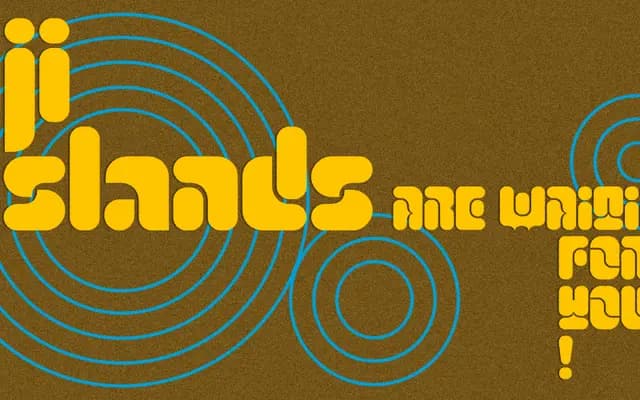
Reptil
Reptil specimen from The Designers Foundry
A contemporary revival of Bob Newman's 1971 Letraset typeface Turtle, rebuilt on circular geometry by Raphaël de la Morinerie and Ethan Nakache.
Designed by Raphaël de la Morinerie and Ethan Nakache, Reptil takes the circular structure of the long-forgotten Letraset Turtle and reworks it with a contemporary edge, pushing legibility to its limits through compact capitals and arresting lowercase forms. The result sits somewhere between retro novelty and functional display type, with OpenType alternates offering one-shape variants of r and t alongside three shapes of m. Coverage extends to 344 glyphs across a wide range of Latin-based languages.
Built on a circular geometric foundation with compact capitals and distinctive lowercase forms, Reptil is a contemporary revival of the 1971 Letraset typeface Turtle, placing it firmly in the display category with a retro-geometric subcategory.